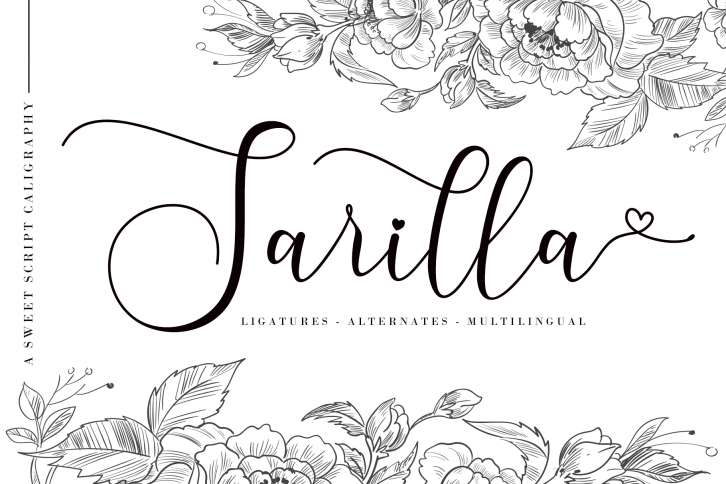
Sarilla Script is a sweet, delicate, elegant and flowing handwritten font. It has beautiful and well balanced characters and as a result, it matches a wide pool of designs. Add it to your most creative ideas and notice how it makes them come alive! This font is PUA encoded which means you can access all of the glyphs and swashes with ease!